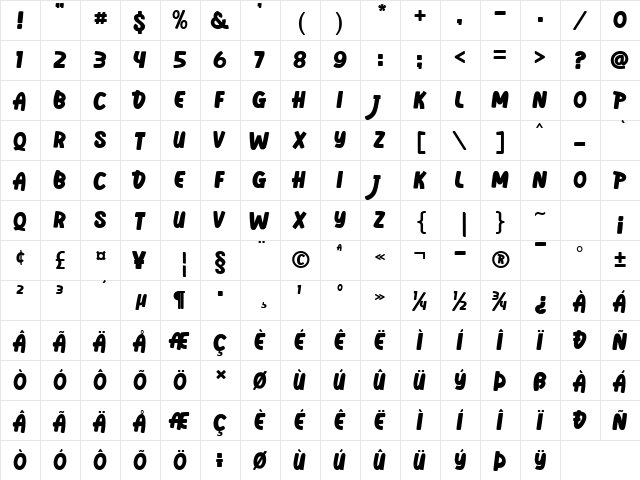
Vanily Regular
| Designer | Kurnia Setyadi |
Design Context for Vanily Typeface
Vanily is a composed and adaptable typeface that performs quietly and consistently across a wide range of design contexts.